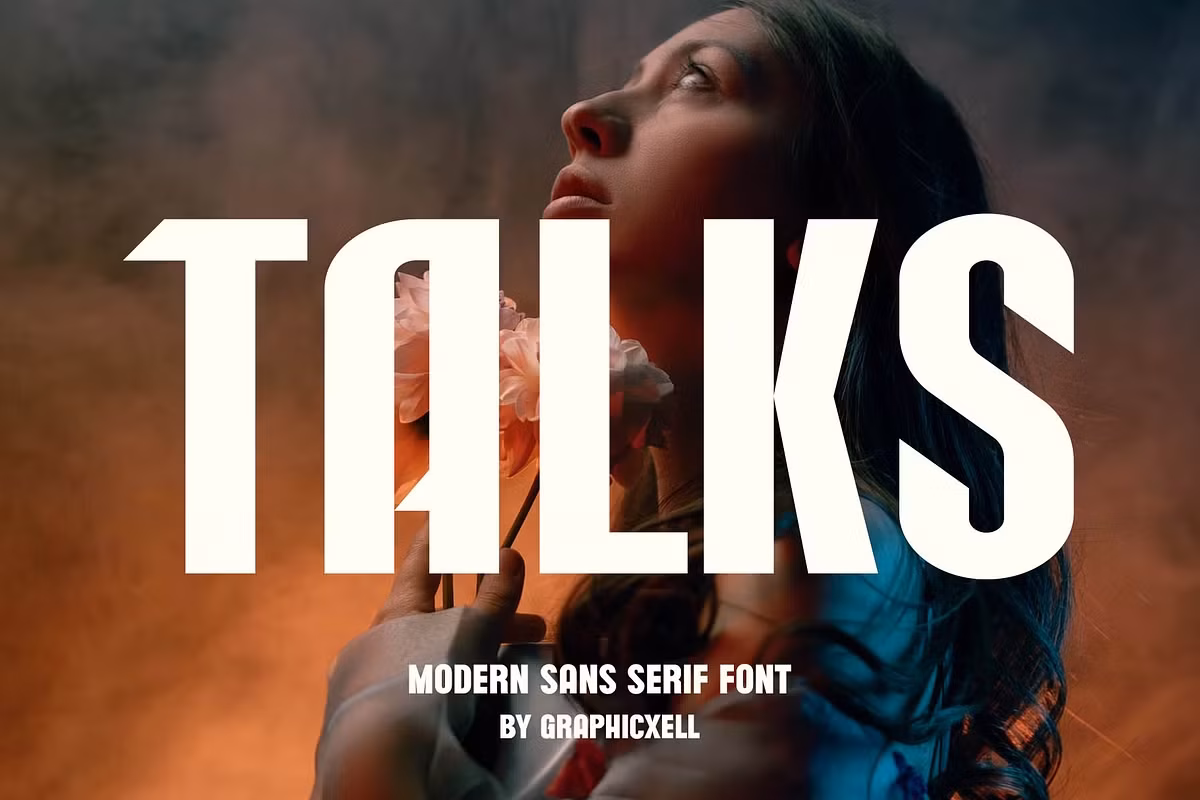
Talks Modern Sans Serif Font Free Download is a sleek, contemporary sans-serif typeface that offers clean lines and geometric precision. With its modern design, Talks is perfect for branding, logos, editorial design, websites, social media graphics, and any project that requires a professional yet stylish look.
Its minimalist design and excellent legibility make it ideal for both large headings and smaller body text. Whether you're creating a corporate identity, designing a website, or producing promotional materials, Talks provides a modern and polished aesthetic to your typography.